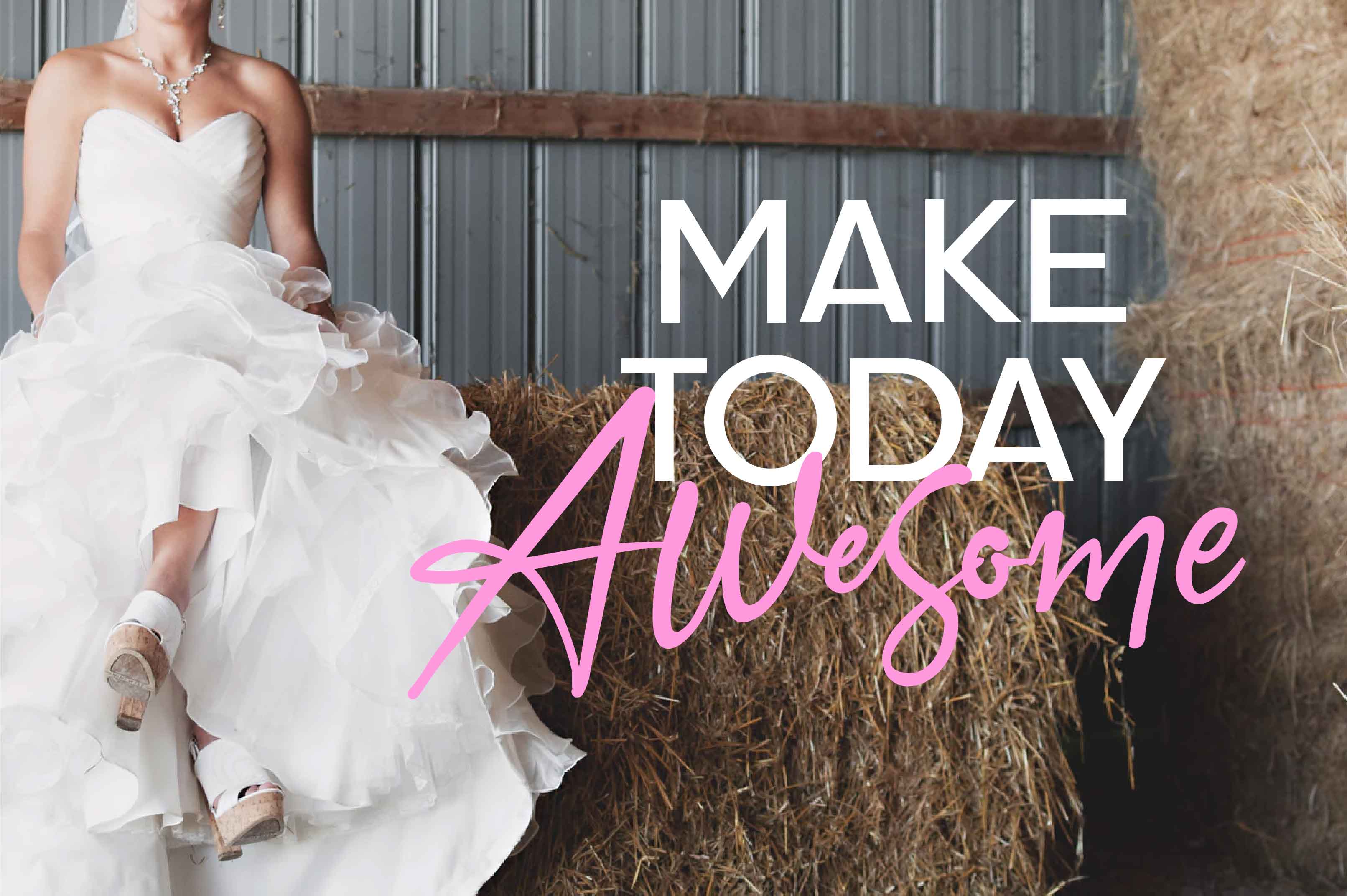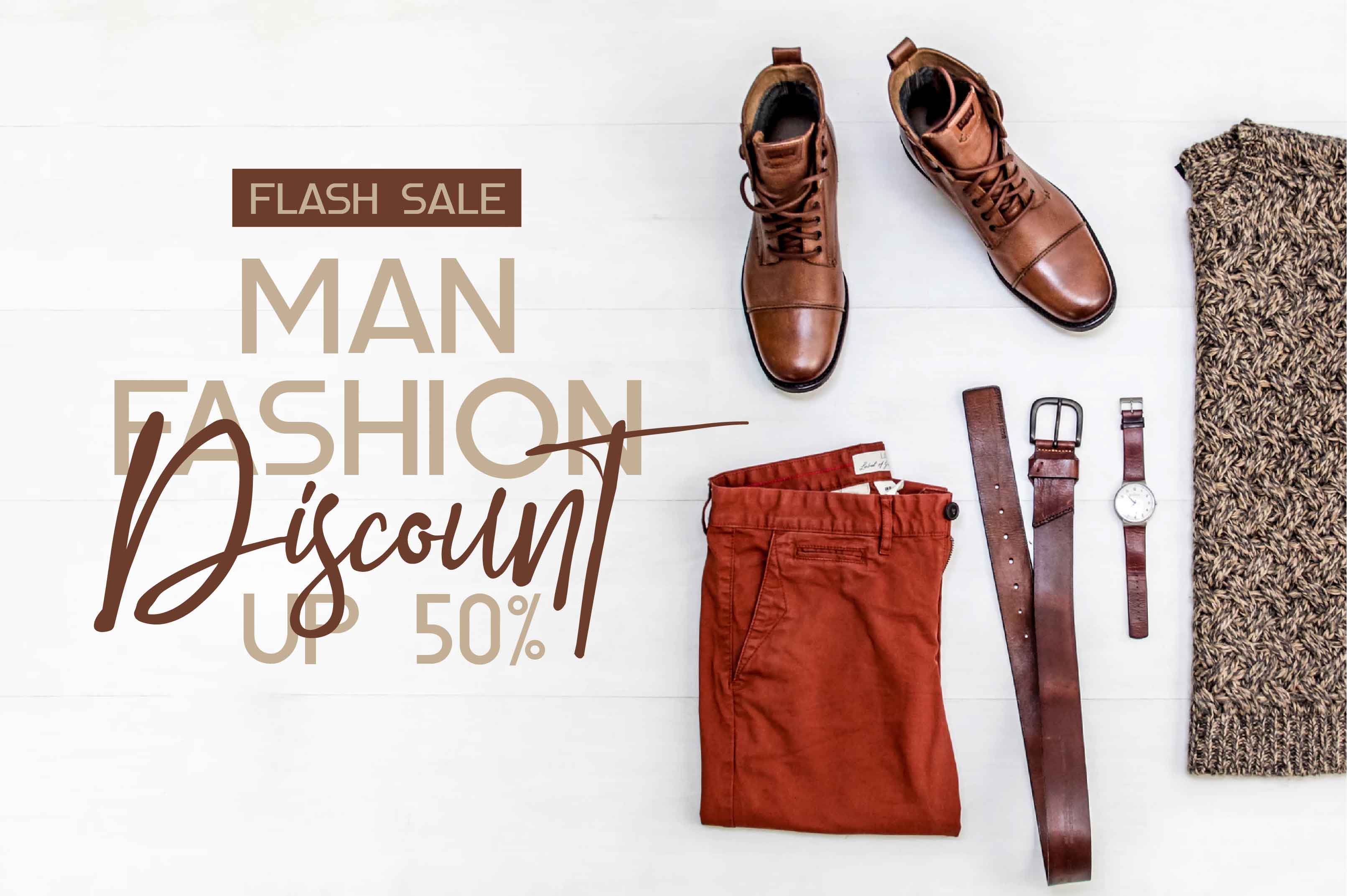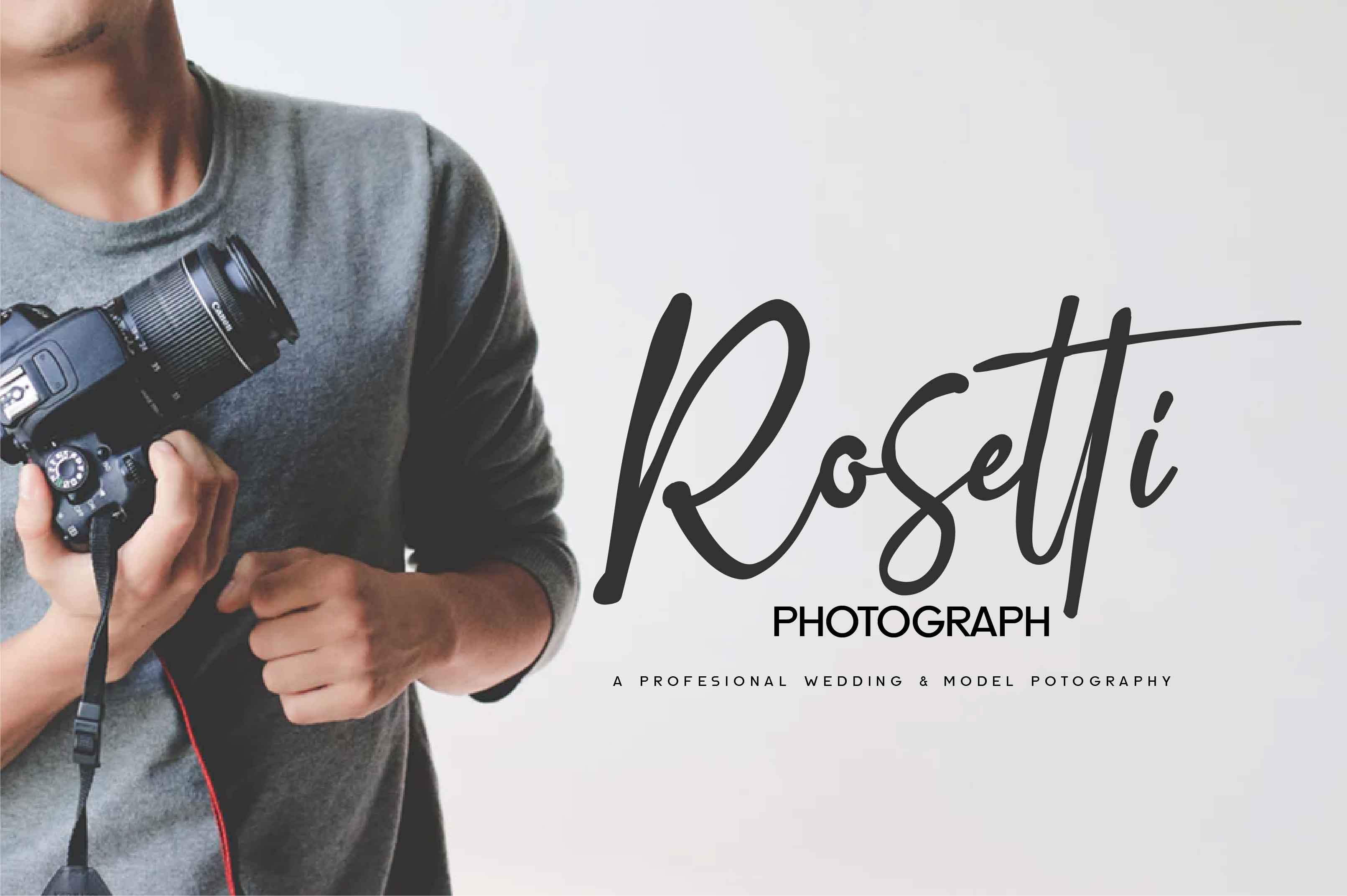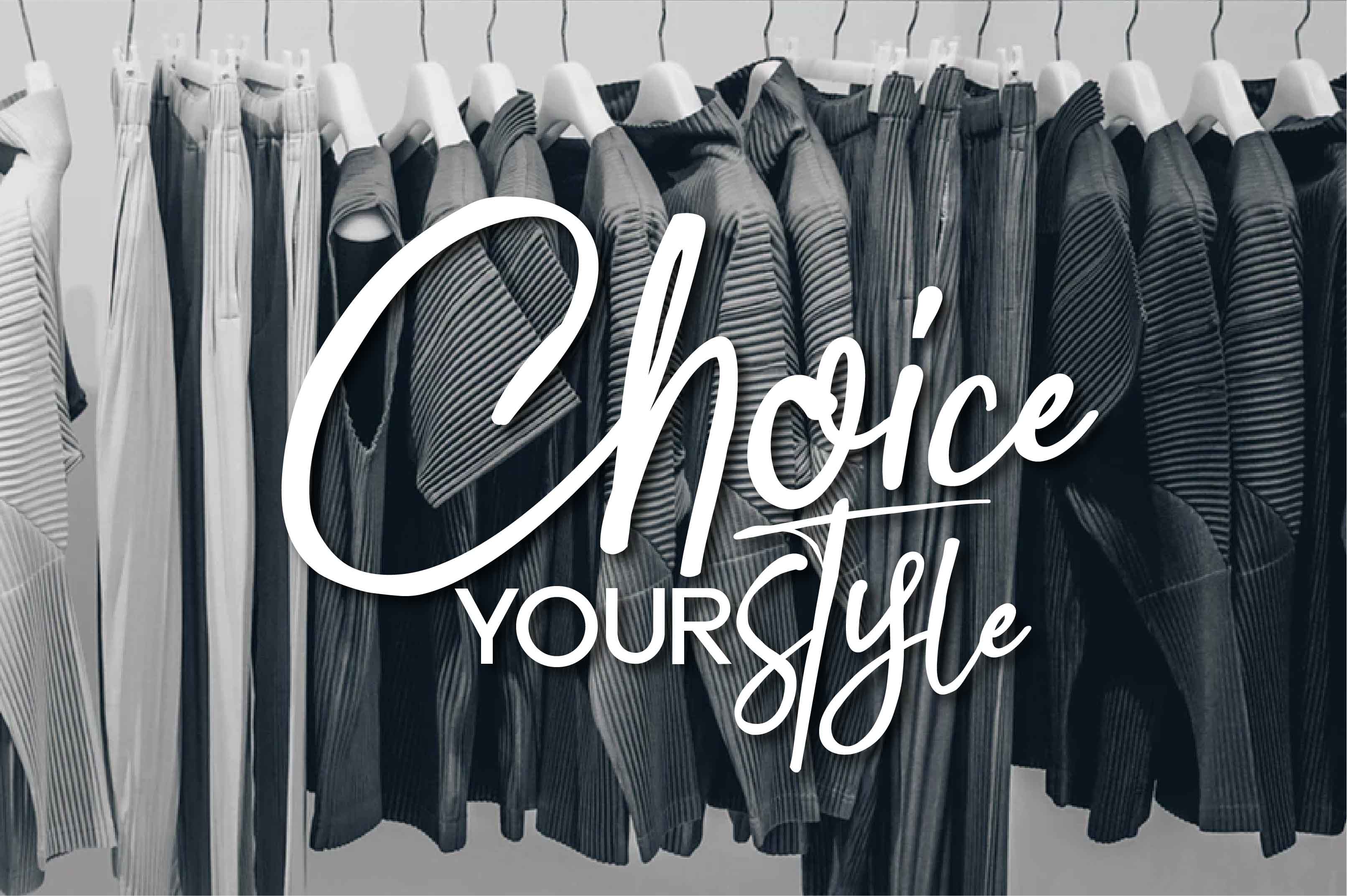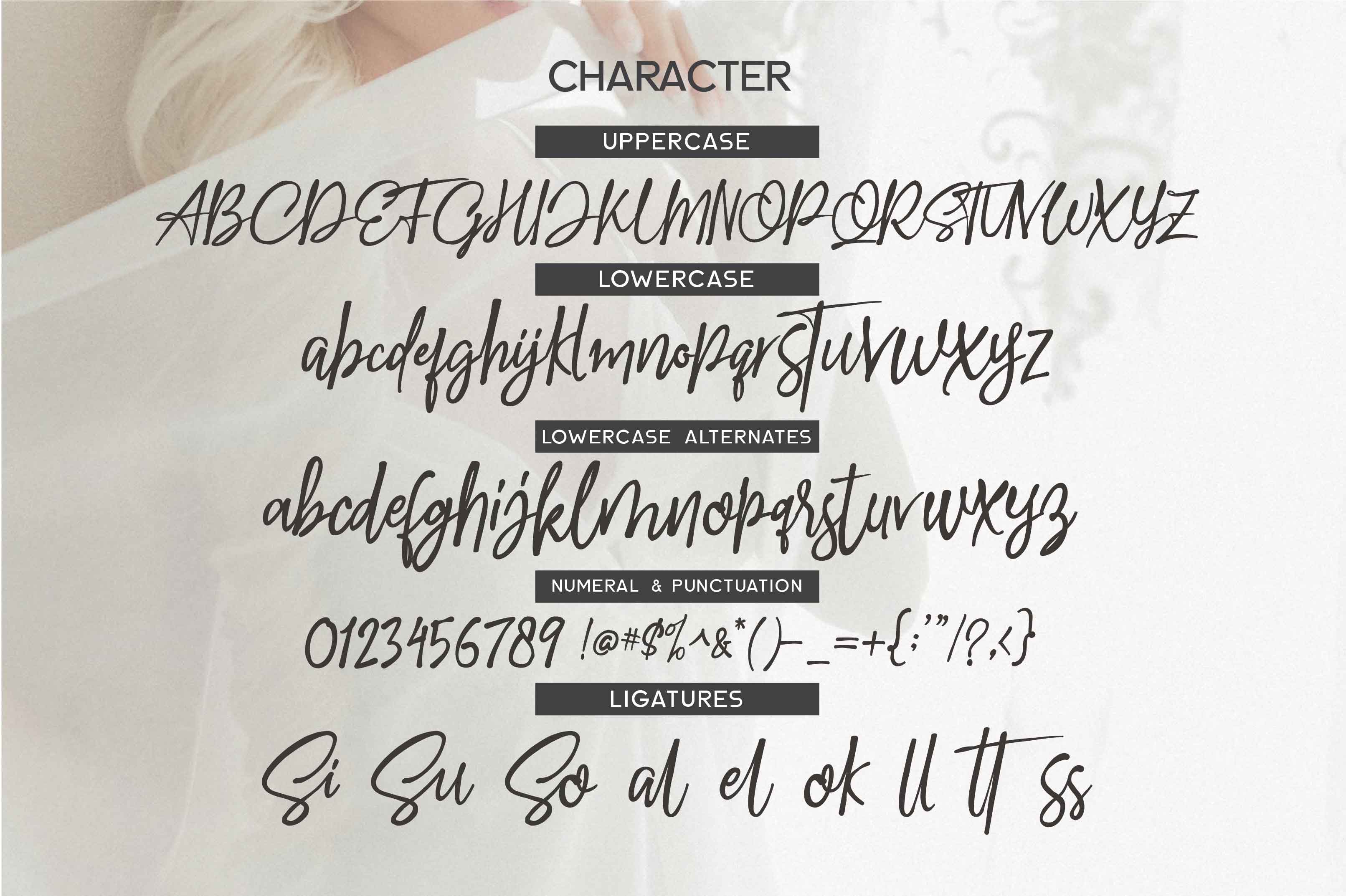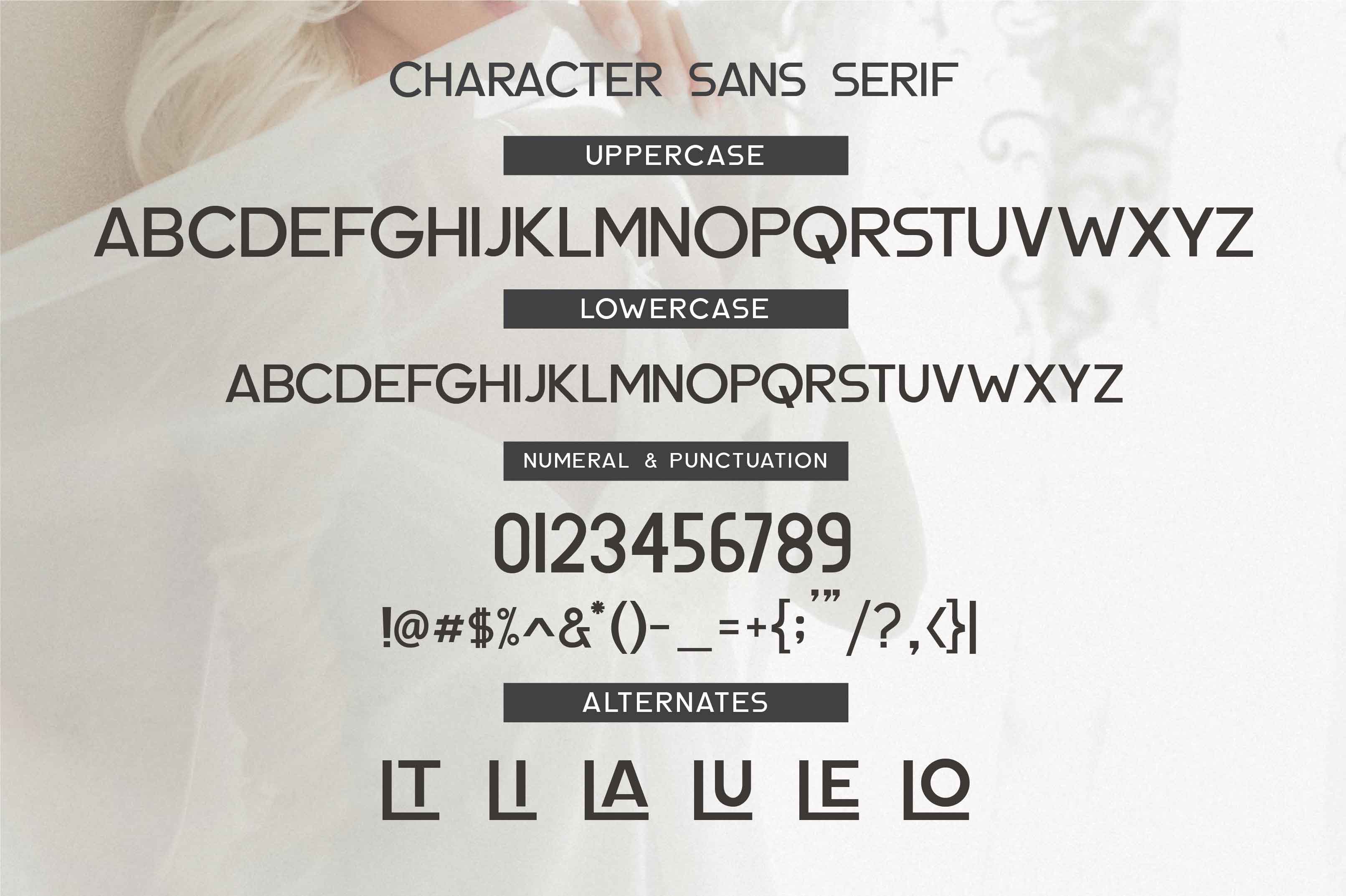
Beatles Culture Font – Free Download
Introduction to Beatles Culture Font
Beatles Culture is a stunning font duo, comprised of a script font and a sans serif.
Together these two create a wonderful dynamism in your designs, or can be used separately for a more minimal approach to your type based projects .
Key Features of Beatles Culture Font